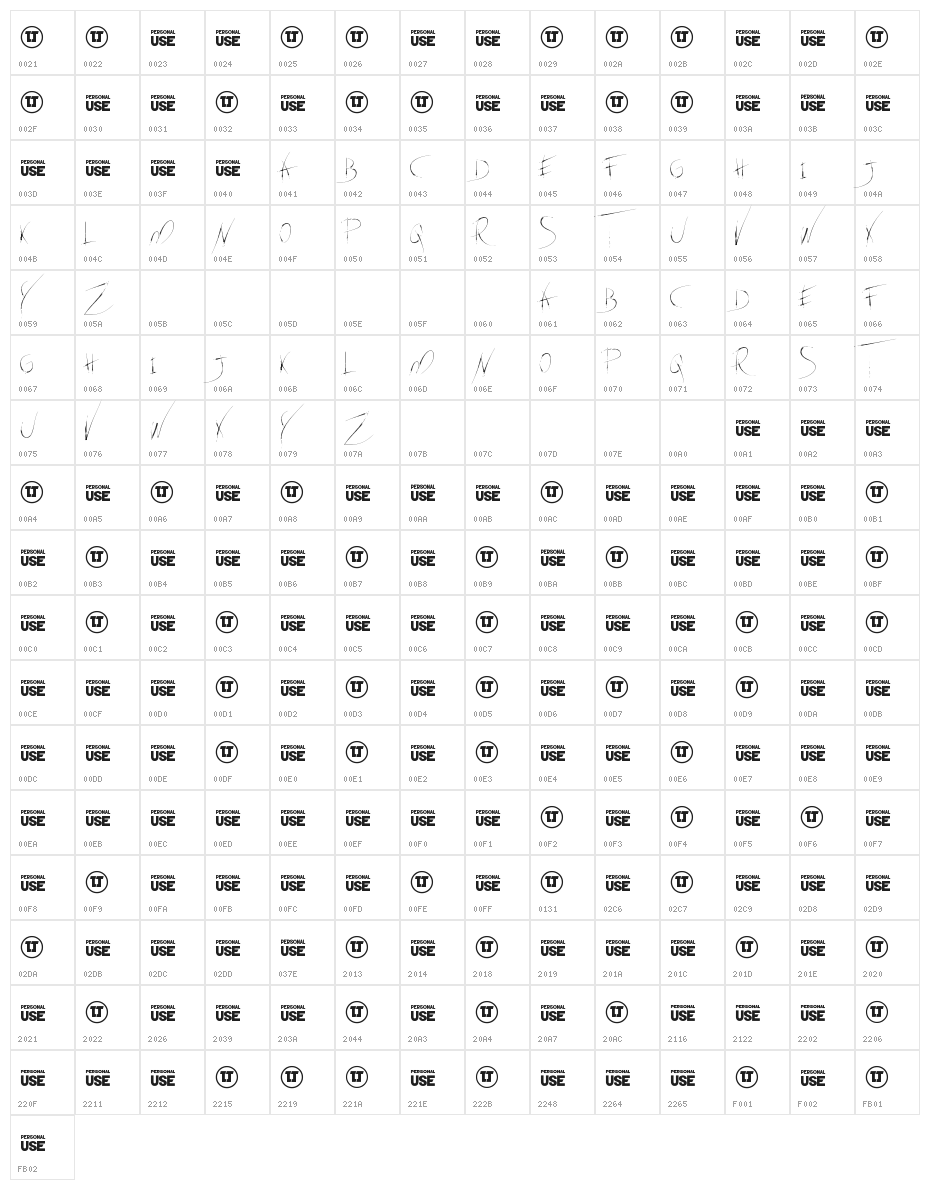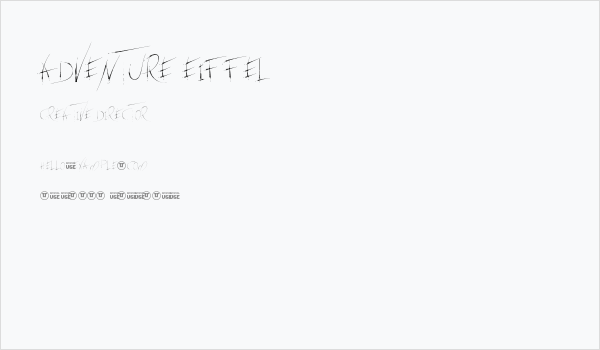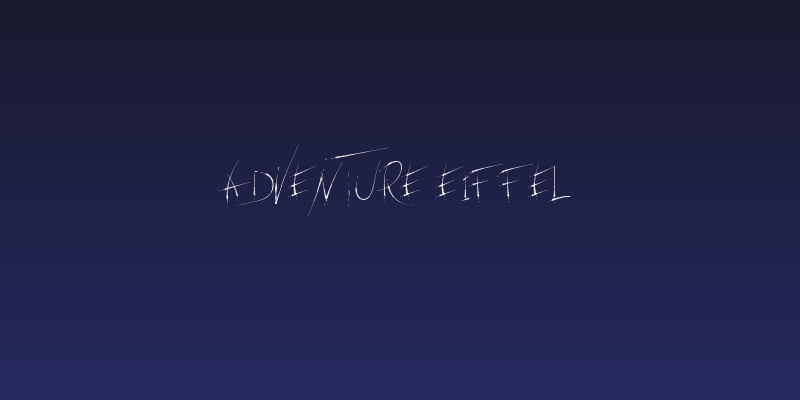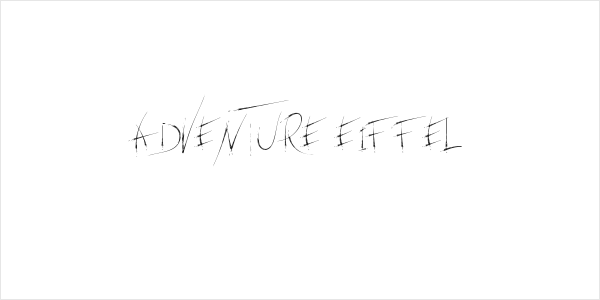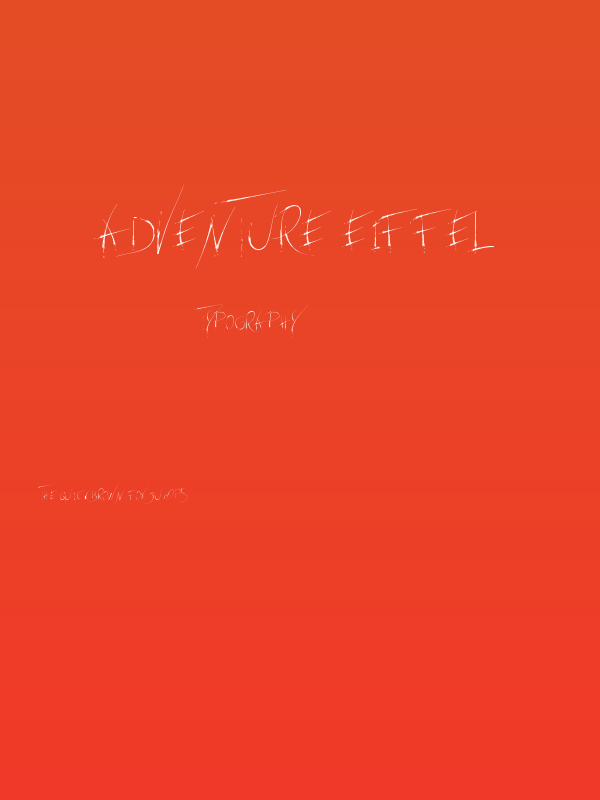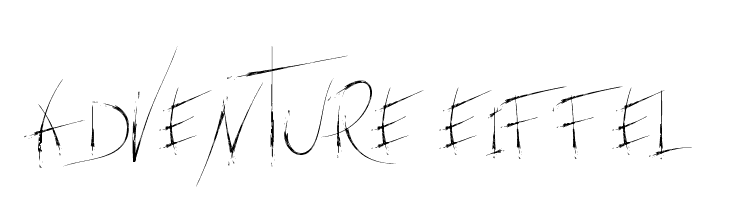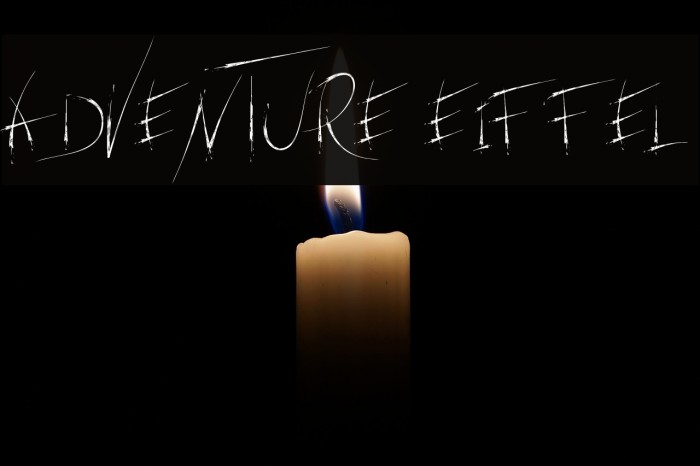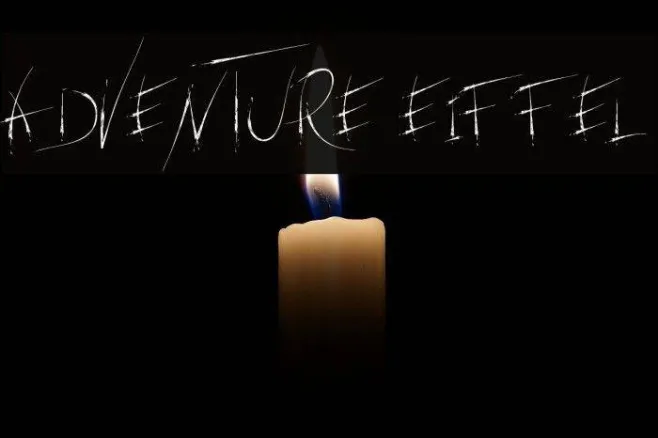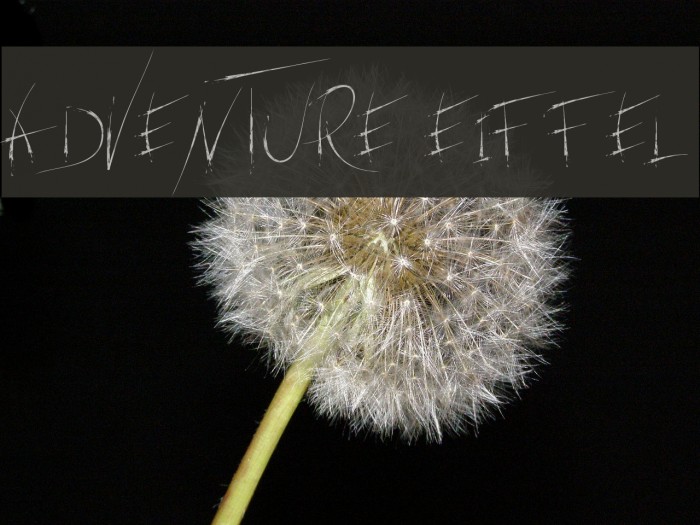
adventure Eiffel Font
adventure Eiffel Description
This font features a highly decorative and artistic style, characterized by its rough, sketch-like strokes that give it a hand-drawn appearance. The letters are elongated and slightly irregular, adding a dynamic and energetic feel. The uppercase and lowercase letters maintain a consistent style, with sharp angles and a sense of movement. This font is ideal for creative projects that require a unique and expressive touch. The overall design is reminiscent of graffiti or street art, making it suitable for modern and edgy applications.
| Use Case | Logos, Headlines, Artistic projects |
| Proposed Projects | Ideal for posters, album covers, street art-inspired designs, and creative branding. |